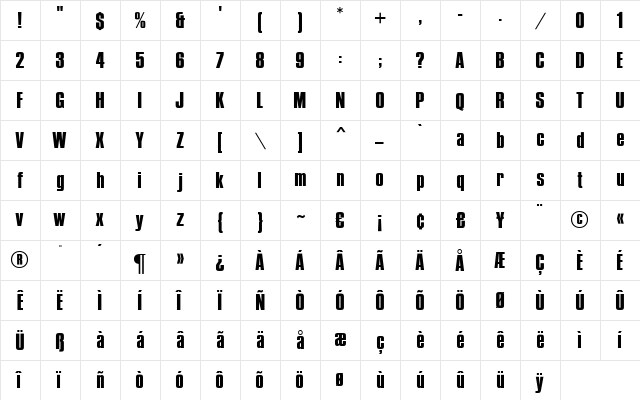
British Inserat MN Bold
Design Context for British Inserat MN Typeface
British Inserat MN offers clean, dependable letterforms without strong stylistic allegiance, making it a practical choice for designers who need flexibility. Its bold stroke weight gives it real presence on the page.